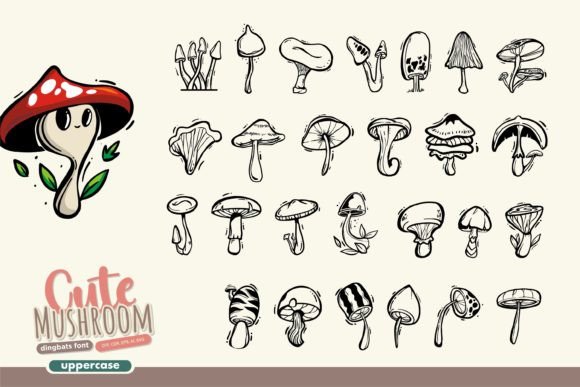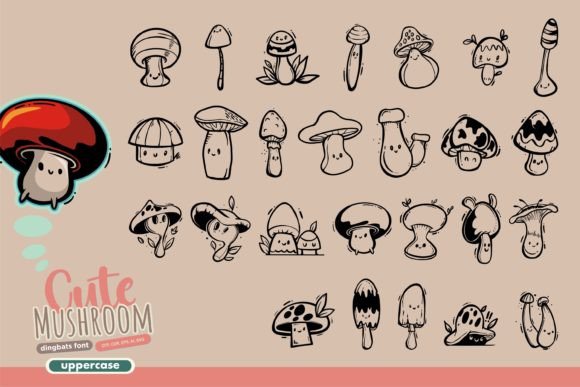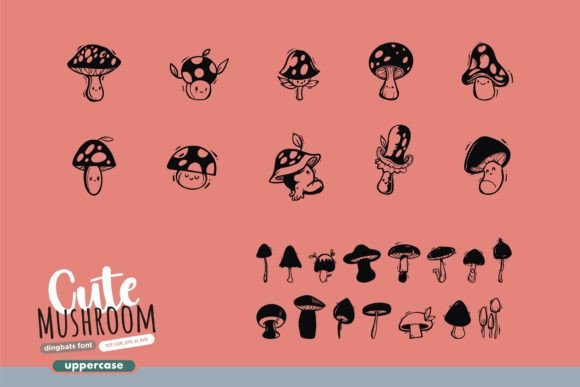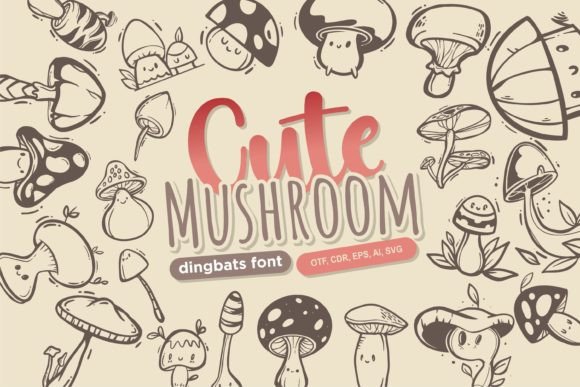
Cute Mushroom Font: The Fun and Versatile Dingbats Font for Designers and Crafters
Are you tired of using the same old fonts for your designs and crafts? Look no further than the Cute Mushroom Font, a uniquely designed dingbats font that’s perfect for adding a touch of whimsy and fun to your projects. In this article, we’ll explore the features and benefits of the Cute Mushroom Font, and show you how it can become your go-to font for all your design needs.
What is Cute Mushroom Font?
Cute Mushroom Font is a specially designed dingbats font that features adorable mushroom illustrations. The font is made up of various mushroom designs, each one carefully crafted to bring a smile to your face. The font is highly versatile and can be used in a variety of styles, making it suitable for a wide range of designs.
Features of Cute Mushroom Font
- Unique Design: The Cute Mushroom Font features a one-of-a-kind design that’s sure to stand out from the crowd. The mushroom illustrations are carefully crafted to be both cute and visually appealing.
- Highly Versatile: The font can be used in a variety of styles, from playful and whimsical to elegant and sophisticated.
- Scalable: The font is highly scalable, allowing you to use it in a variety of projects, from small crafts to large-scale designs.
Uses for Cute Mushroom Font
The Cute Mushroom Font is perfect for a wide range of designs and projects, including:
- Crafts: Use the font to add a personal touch to your crafts, such as handmade cards, gift tags, and scrapbook pages.
- Digital Design: The font is perfect for digital designers who want to add a touch of whimsy to their designs, such as social media graphics, blog posts, and website headers.
- Presentations: Use the font to add visual interest to your presentations, making them more engaging and fun.
- Greeting Cards: The font is perfect for creating unique and personalized greeting cards for special occasions.
Benefits of Using Cute Mushroom Font
There are many benefits to using the Cute Mushroom Font in your designs and projects. Some of the benefits include:
- Adds Visual Interest: The font adds a touch of whimsy and fun to your designs, making them more visually appealing.
- Unique and Creative: The font allows you to express your creativity and add a personal touch to your designs.
- Versatile: The font can be used in a variety of styles and projects, making it a great addition to your font library.
Tips for Using Cute Mushroom Font
Here are some tips for getting the most out of the Cute Mushroom Font:
- Experiment with Different Styles: Try out different styles and combinations of fonts to find the perfect look for your design.
- Use it Sparingly: Use the font sparingly to add visual interest to your design, rather than overwhelming it.
- Pair it with Other Fonts: Pair the Cute Mushroom Font with other fonts to create a unique and visually appealing design.
The Cute Mushroom Font is a fun and versatile dingbats font that’s perfect for designers and crafters of all skill levels. With its unique design, highly versatile style, and ease of use, it’s sure to become your go-to font for all your design needs. Whether you’re using it for crafts, digital design, presentations, or making greeting cards, the Cute Mushroom Font is sure to add a touch of whimsy and fun to your projects.